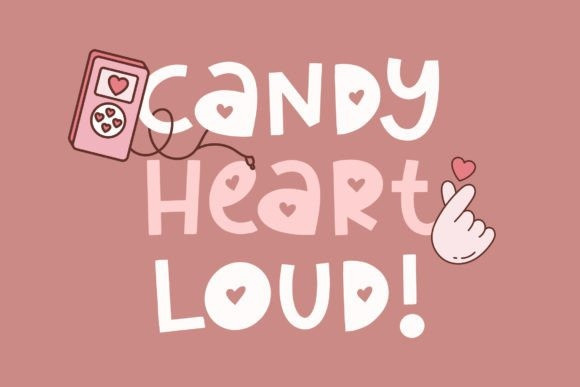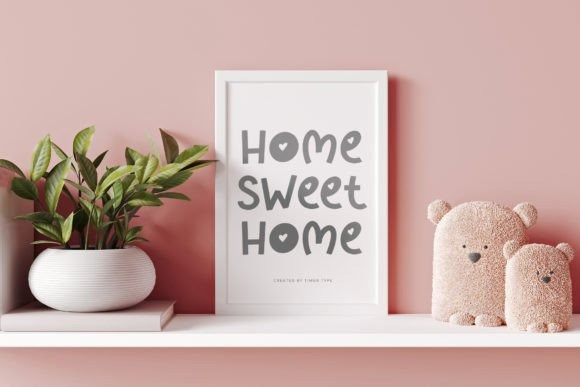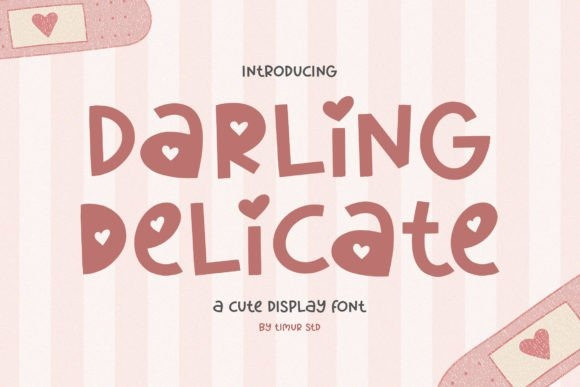
Darling Delicate Font
Darling Delicate Font is a sweet and friendly handwritten font. Its natural and unique style makes it incredibly fitting to a large pool of designs. The only limit is your imagination!